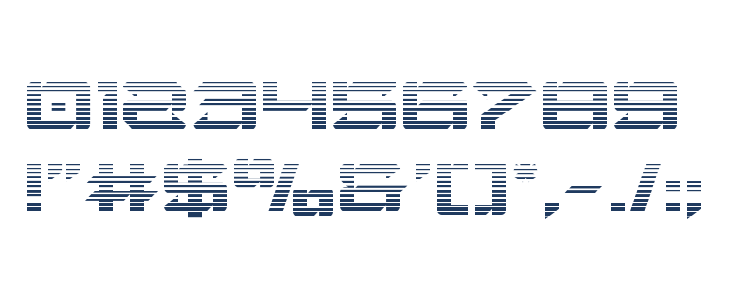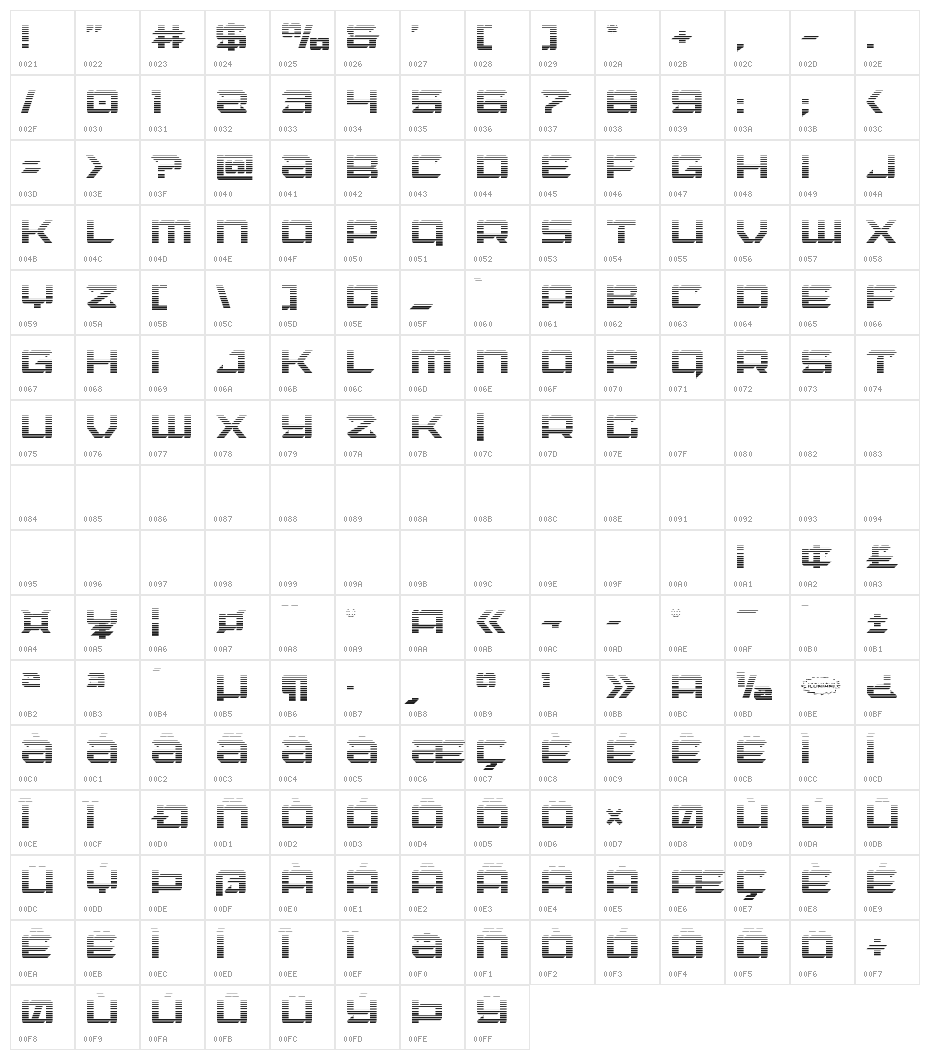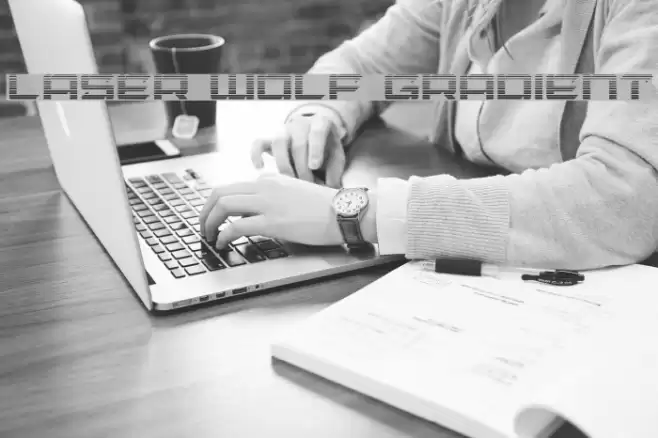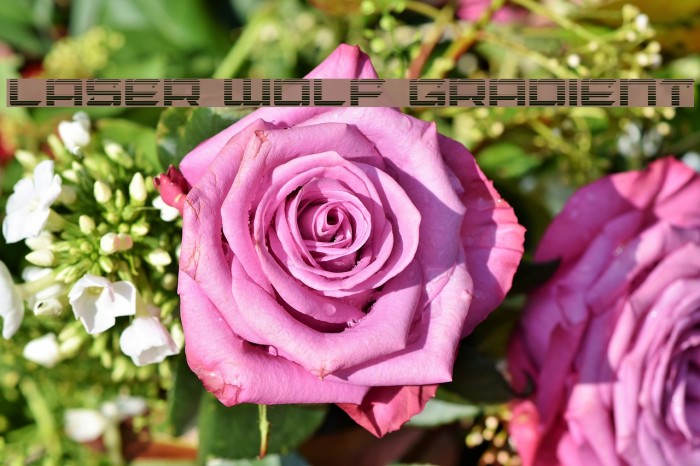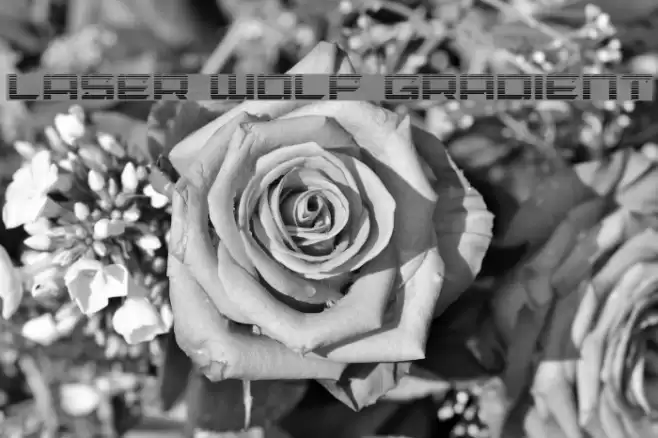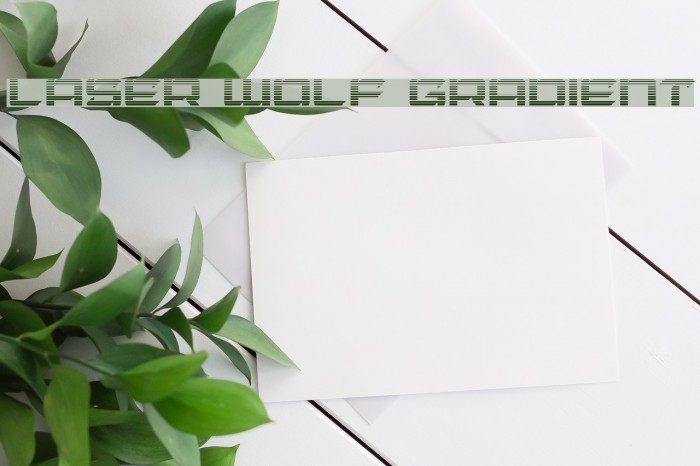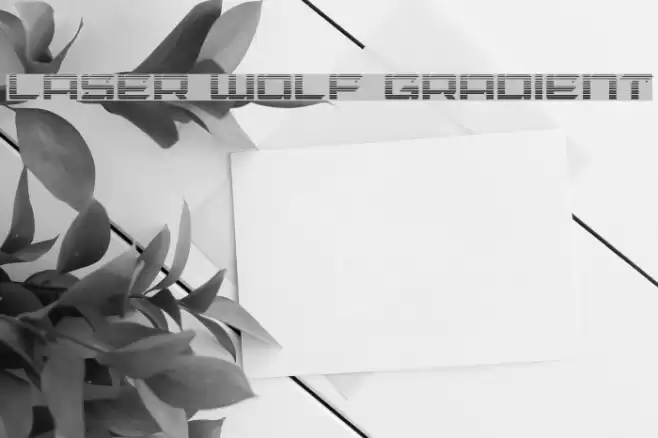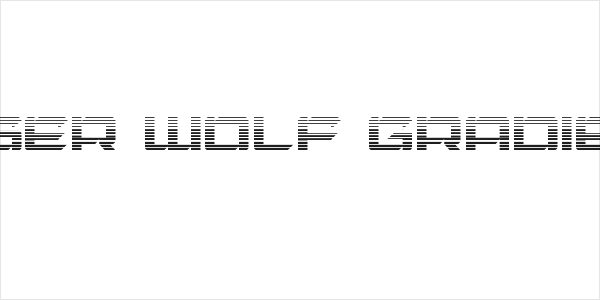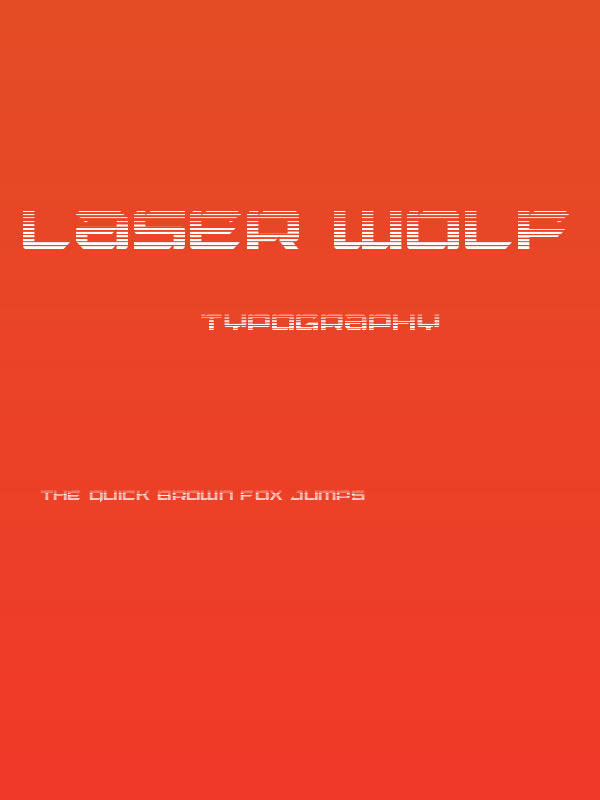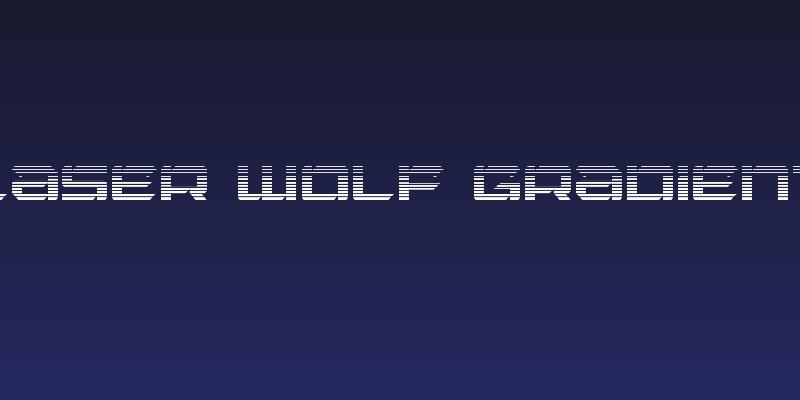
Laser Wolf Gradient Font
Laser Wolf Gradient Description
This font features a futuristic and digital aesthetic, characterized by its unique gradient effect within each character. The design incorporates horizontal lines that create a sense of movement and depth, giving it a high-tech and modern feel. The uppercase and lowercase letters maintain a consistent style, with sharp angles and geometric shapes that enhance its digital appearance. The numerals and special characters follow the same design principles, ensuring uniformity across all glyphs. This font's distinct style makes it ideal for projects that require a contemporary and cutting-edge look.